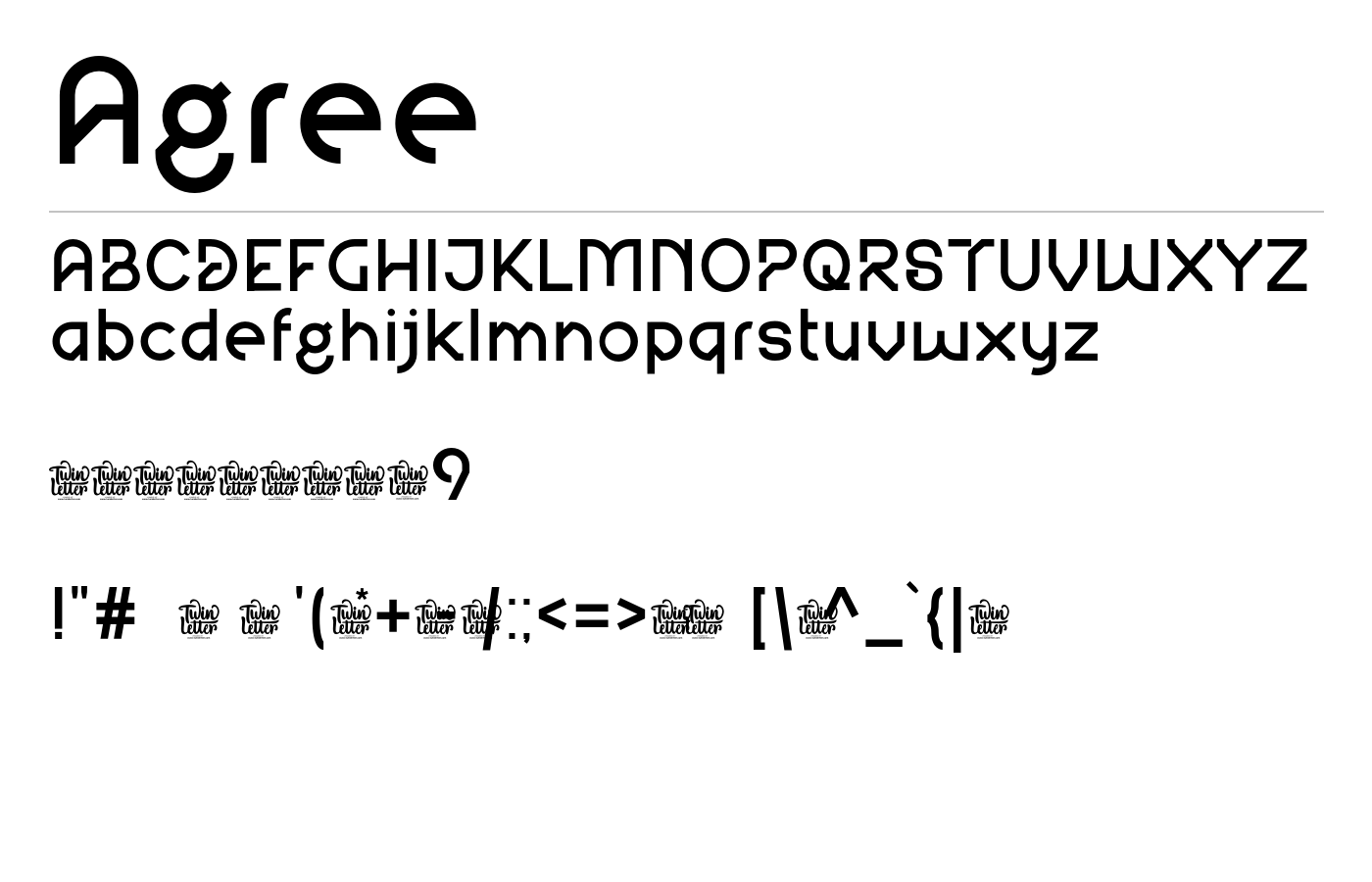
Agree is a modern sans serif font with a unique geometric style and moderate stroke contrast that lends it a sleek, contemporary feel. Its clean lines combined with distinctive letterforms, such as the single-story ‘a’ and ‘g’ and angular details, make it ideal for eye-catching headlines, logos, and branding projects seeking a fresh, innovative look. The font’s well-balanced proportions and clear readability ensure it works well across digital and print, giving a stylish yet approachable vibe.
Agree Font
About Agree Font